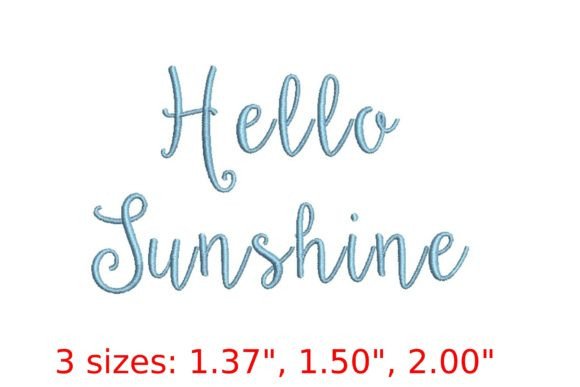
Hello Sunshine Font
Introducing Hello Sunshine Font, a vibrant and cheerful script font designed to bring warmth and positivity to your creative projects. Whether you're crafting personalized embroidery designs, adding a touch of whimsy to your digital content, or looking for a unique way to express yourself, this font is perfect for anyone who loves to create with joy.
A Creative Tool for Everyone
Hello Sunshine Font isn't just another design tool—it's a gateway to self-expression. Its playful and lively letterforms are ideal for those who want to infuse their work with personality and charm. From beginners exploring the world of embroidery to seasoned professionals seeking fresh ideas, this font offers something for everyone.
Beginners: A Friendly Starting Point
For newcomers to embroidery or design, Hello Sunshine Font can be an excellent first step. Its clean and readable style makes it easy to work with, especially when starting out. The font’s consistent structure helps beginners feel confident as they experiment with different stitches and techniques. Plus, its cheerful appearance adds a sense of fun to the creative process.
Experienced Users: A Versatile Addition
For those already experienced in embroidery or graphic design, Hello Sunshine Font offers new possibilities. Its flexibility allows it to be used across various mediums, from fabric to digital platforms. This versatility means that even seasoned creators can find new ways to incorporate it into their existing projects, enhancing both the visual appeal and the emotional impact of their work.
Why Different Audiences Care
The value of Hello Sunshine Font varies depending on the user's goals and needs. For example, small business owners might use it to create custom branding materials, while educators could integrate it into classroom activities to make learning more engaging. Bloggers and marketers may appreciate its ability to stand out in a crowded digital space, helping their content catch the eye of readers.
Creators and Entrepreneurs: Building Brand Identity
Creators and entrepreneurs often look for tools that help them build a unique brand identity. Hello Sunshine Font can play a key role in this process by providing a consistent and recognizable visual element across all marketing materials. Its bright and friendly aesthetic aligns well with brands that aim to convey warmth, approachability, and creativity.
Consumers and Hobbyists: Personal Expression
For consumers and hobbyists, the appeal of Hello Sunshine Font lies in its ability to facilitate personal expression. Whether it's creating custom gifts, decorating home spaces, or simply enjoying the joy of making something by hand, this font adds a special touch that makes each project feel more meaningful.
Practical Uses Across Different Fields
Understanding how different audiences might use Hello Sunshine Font can help you determine if it fits your own needs. Here are some practical examples:
- Embroidery Enthusiasts: Use it to create personalized items like T-shirts, tote bags, or home décor pieces.
- Bloggers: Incorporate it into headers, captions, or social media posts to add a unique flair.
- Small Business Owners: Apply it to signage, packaging, or promotional materials to create a cohesive brand image.
- Teachers: Use it in classroom activities, storyboards, or student projects to encourage creativity and engagement.
- Freelancers: Integrate it into client presentations, proposals, or portfolio materials to stand out in a competitive market.
Considering Your Priorities
When evaluating whether Hello Sunshine Font is right for you, consider your priorities. If ease of use is important, the font’s straightforward design and clear guidelines make it accessible. For those focused on quality, the font’s high-resolution files ensure crisp and clean results. Flexibility and adaptability are also key factors, especially for users who need the font to work across multiple formats and platforms.
Conclusion
Hello Sunshine Font is more than just a design tool—it's a source of inspiration and joy. Whether you're a beginner taking your first steps into embroidery or a professional looking to enhance your creative output, this font has something to offer. By understanding how different audiences may benefit from it, you can better determine if it aligns with your goals and needs. Let your creativity shine with Hello Sunshine Font and discover the endless possibilities it brings to your projects.